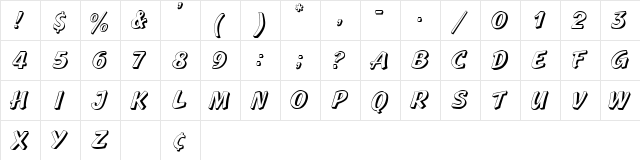
Boya Display Caps SSi Regular Font Preview
Boya Display Caps SSi Regular
Design Context for Boya Display Caps SSi Typeface
Boya Display Caps SSi brings ornamental detail and strong personality to headlines and identities, where visual impact matters more than quiet functionality.
Font Pairing: Pair with a clean neutral sans-serif for body copy to let Boya Display Caps SSi's character lead without overwhelming the composition.
Pro Tip: Use Boya Display Caps SSi exclusively at display sizes — it was designed to be seen, not read at length. Let a neutral companion handle body copy.